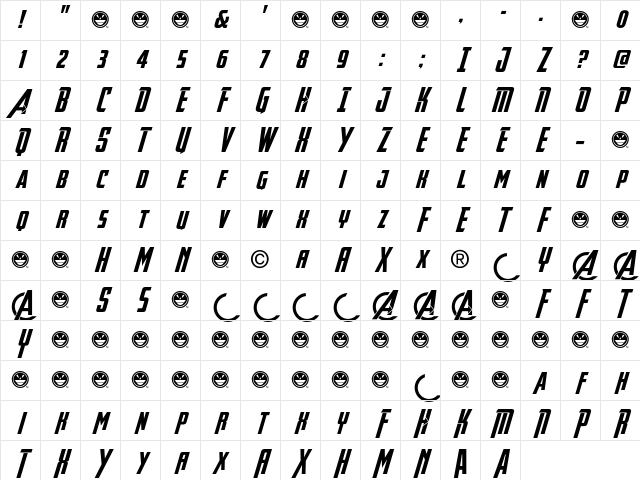
Complete Avengeance Heroic Avenger Regular glyph index. Displaying only characters natively supported by Avengeance Heroic Avenger Regular font.
Avengeance Heroic Avenger is a composed and adaptable typeface that performs quietly and consistently across a wide range of design contexts.